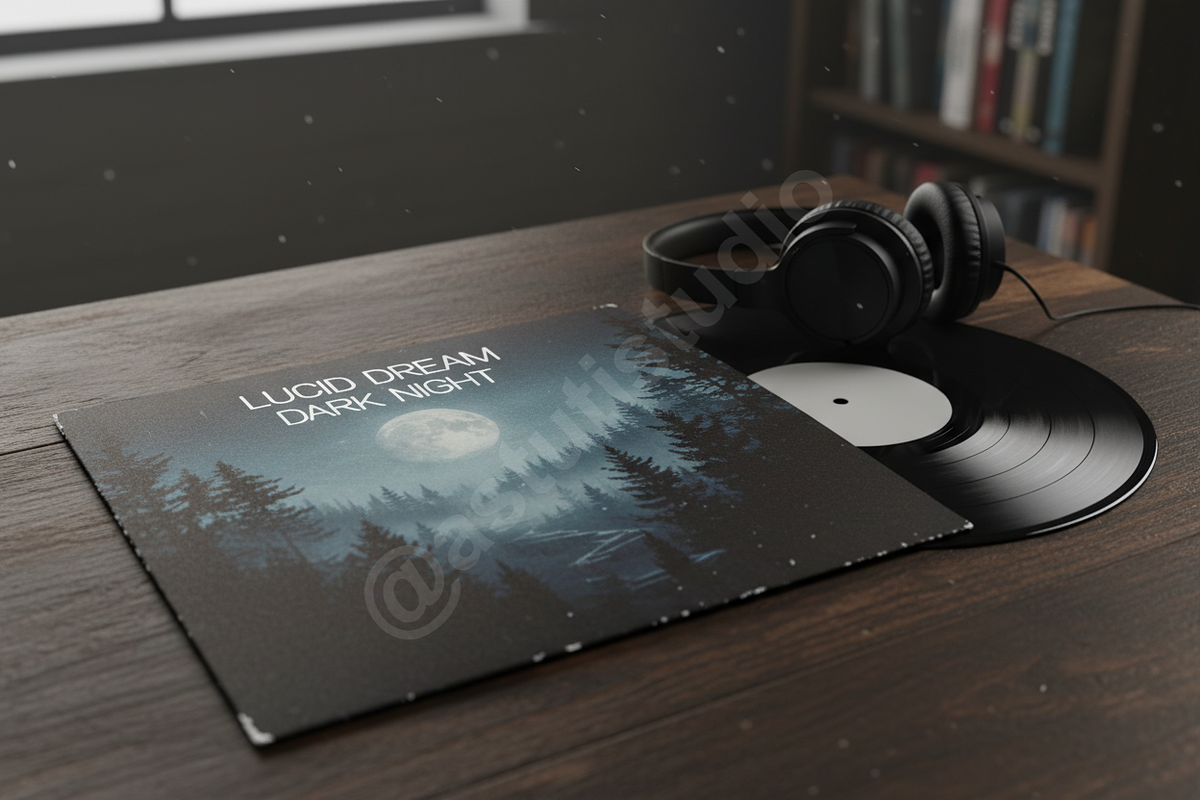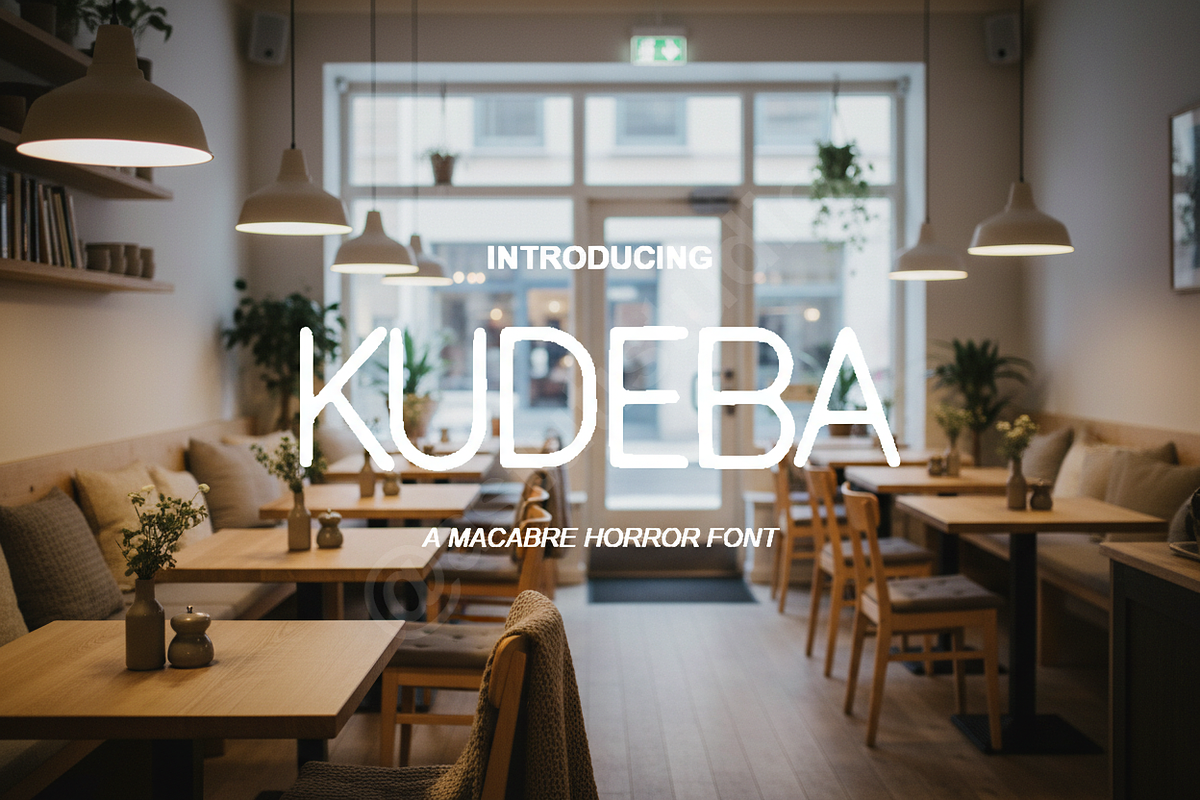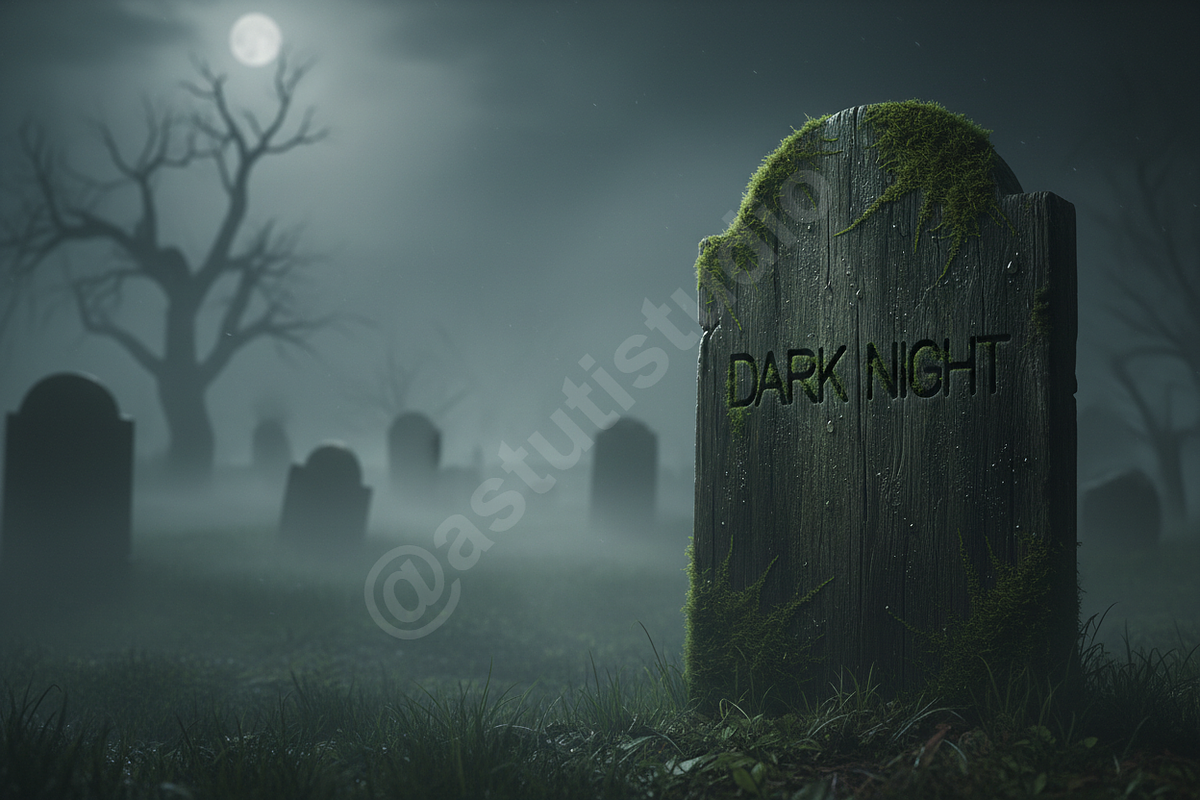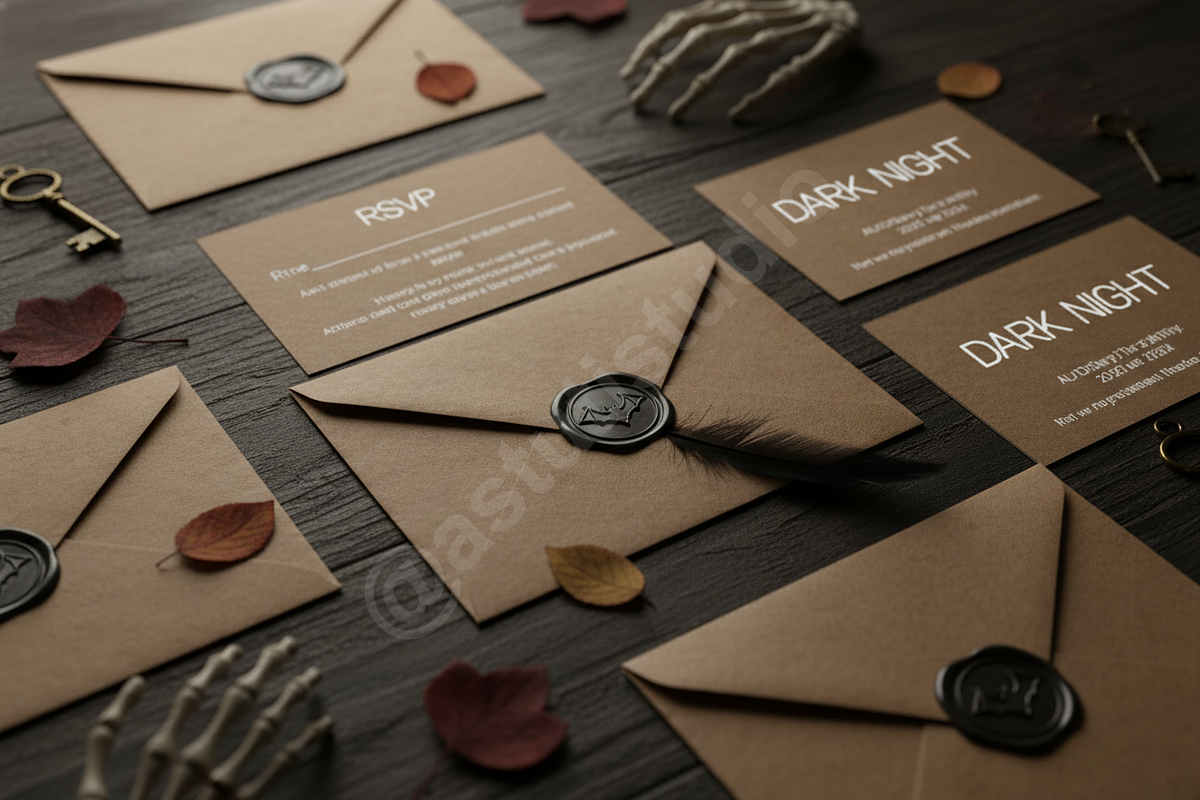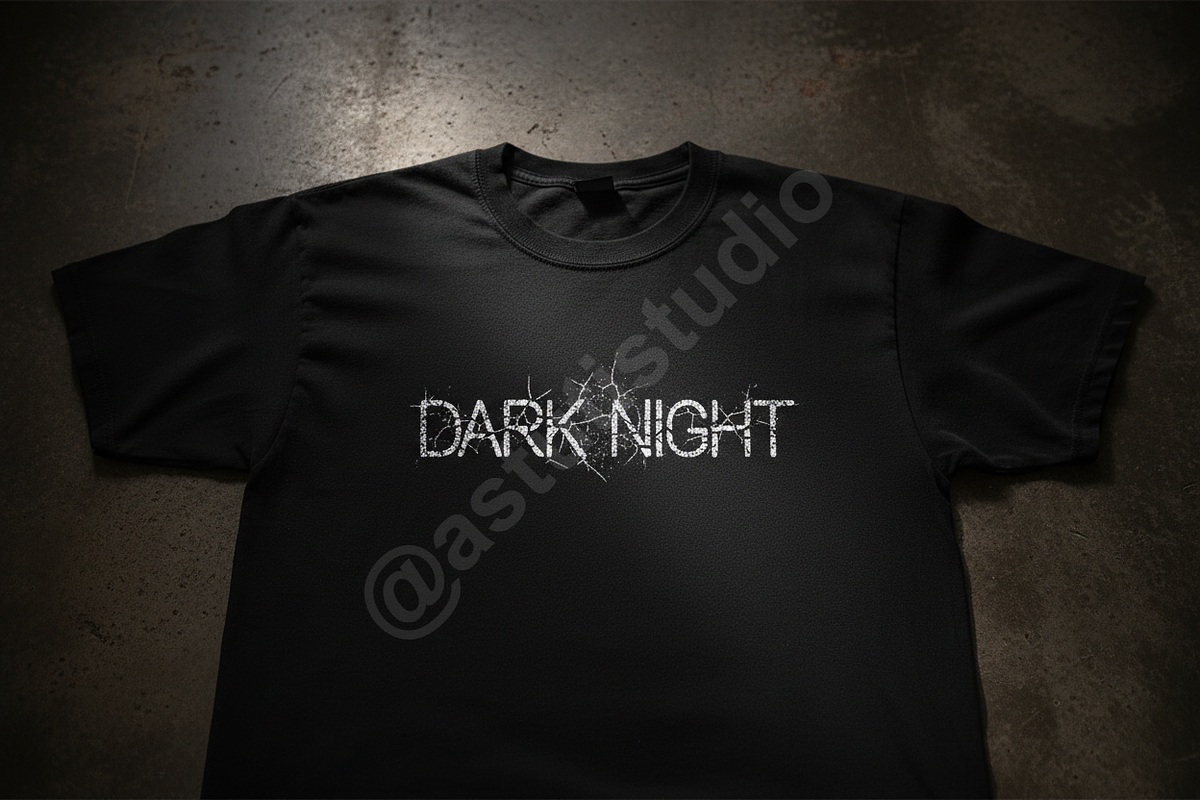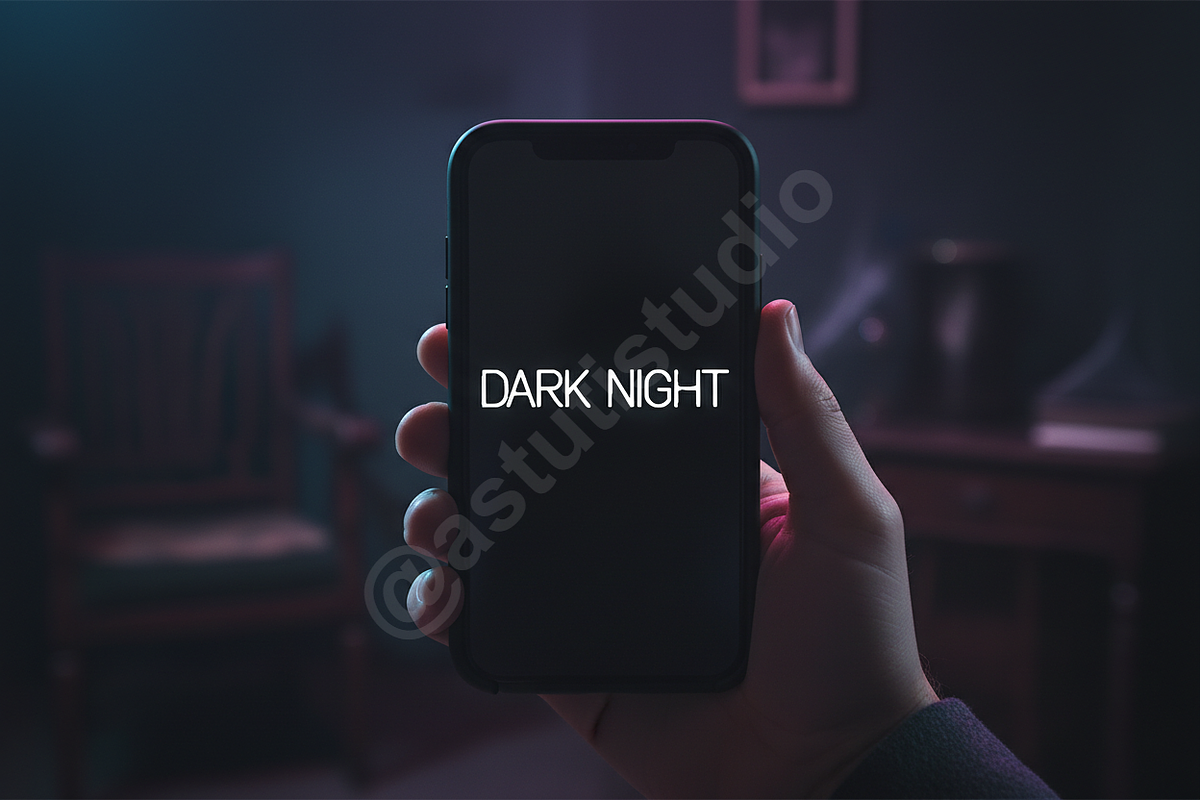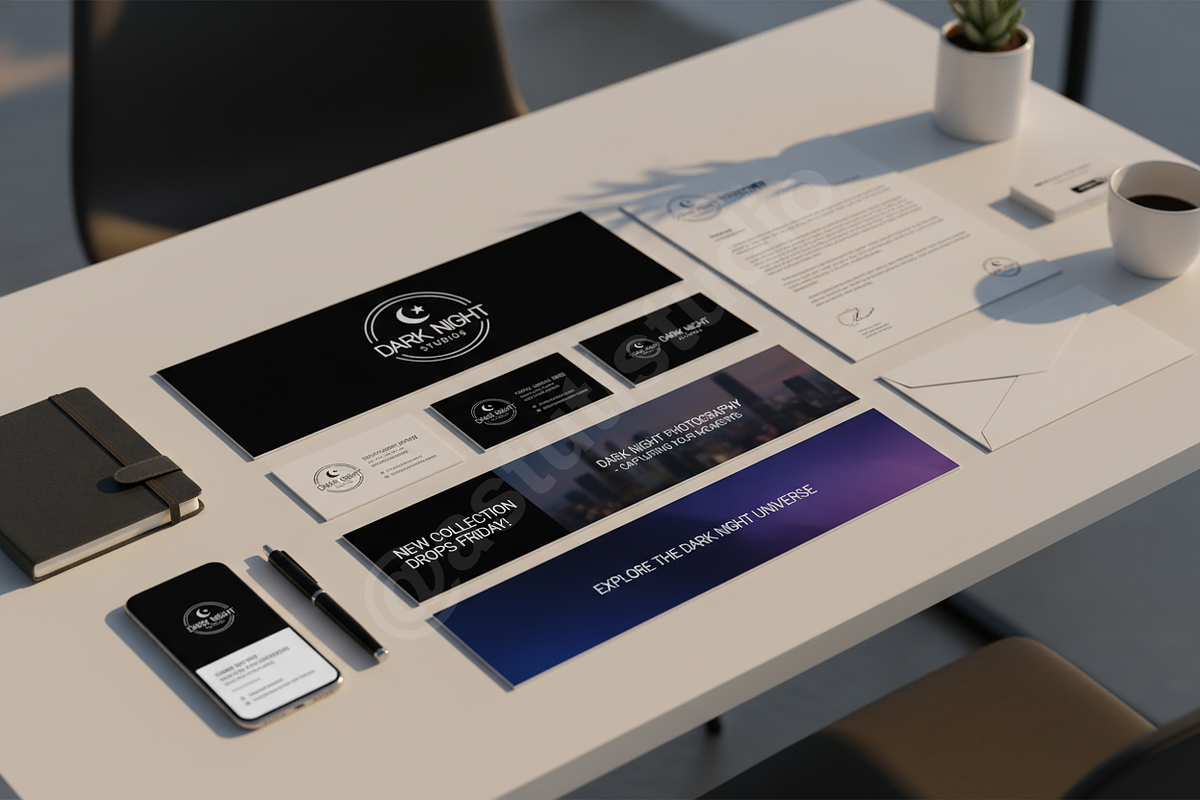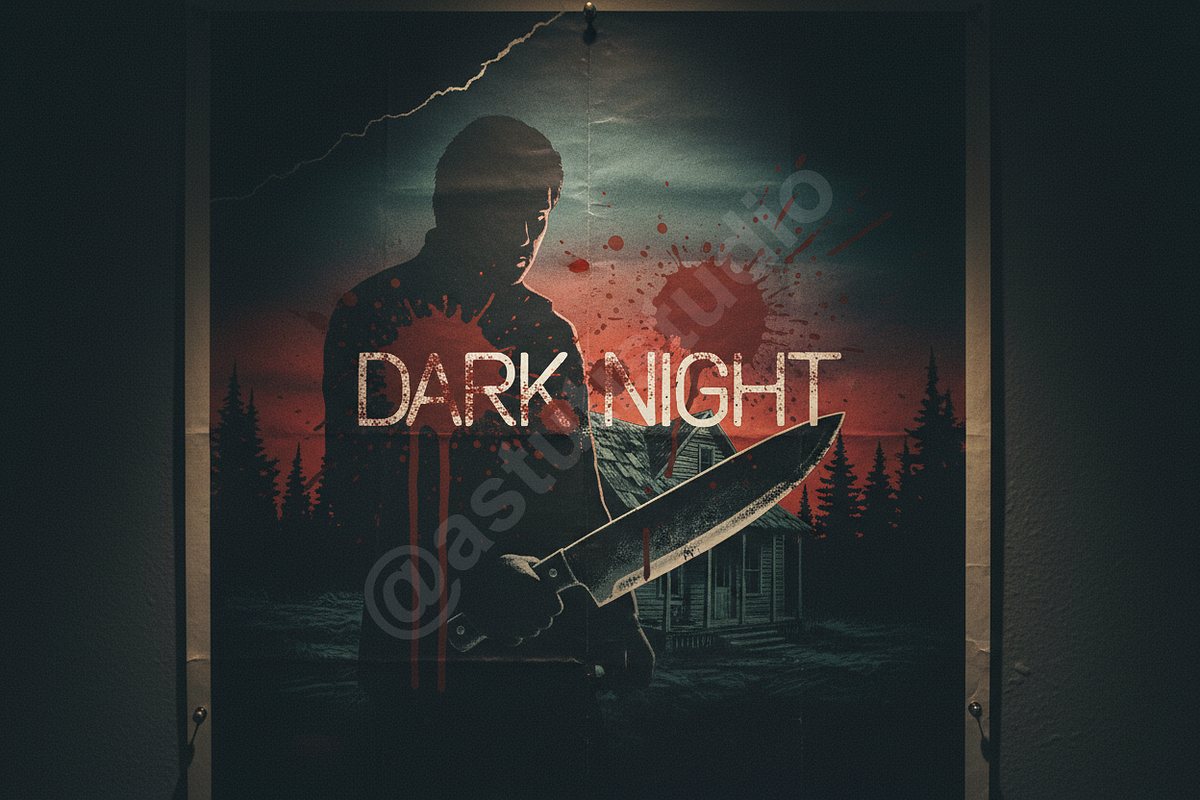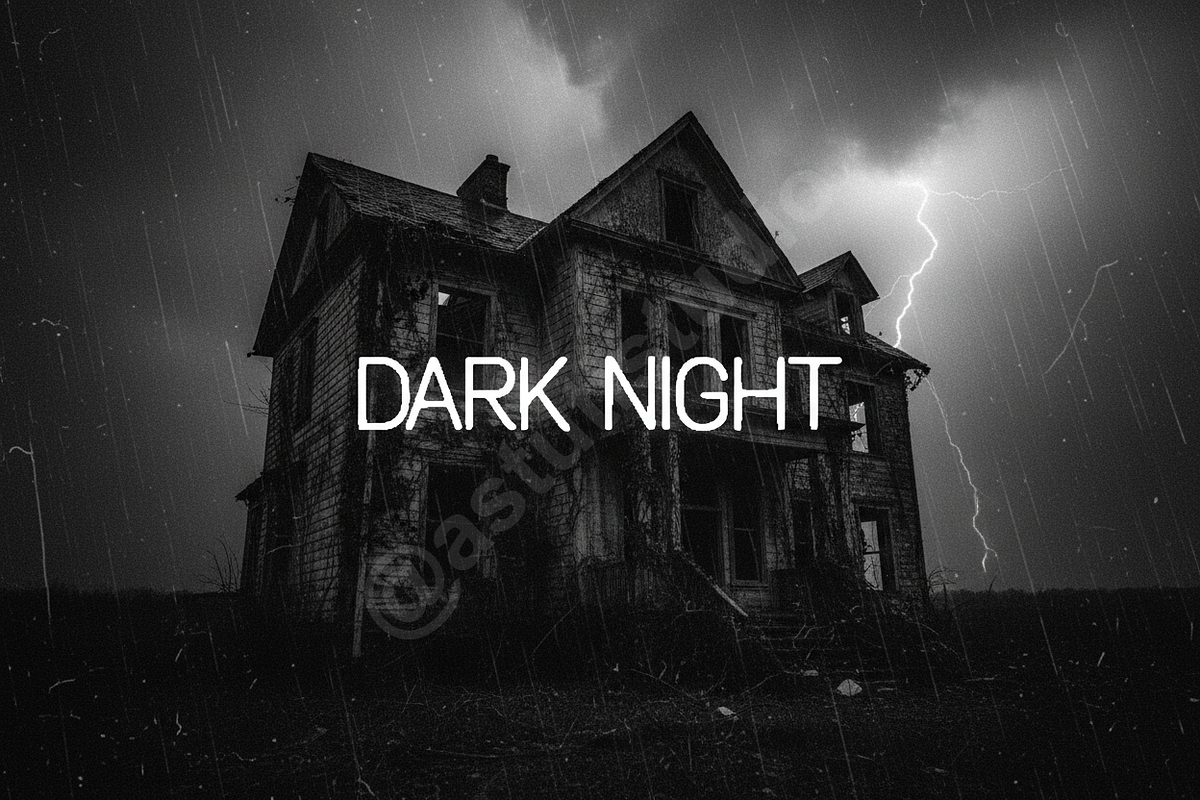
KUDEBA - ELEGANT LUXURY SERIF TYPEFACE
Elevate your creative projects with Kudeba, a high-end serif font meticulously crafted for premium studio aesthetics. Designed with sophisticated contrast and clean lines, Kudeba brings an air of timeless elegance to modern typography. Whether you are crafting a boutique brand identity or designing a high-fashion editorial layout, this font delivers a polished and professional finish.
Kudeba is specifically optimized for high-impact applications, making it perfect for luxury branding, editorial design, high-end packaging, and curated social media content.
- Elegant high-contrast serif design
- Extensive set of unique ligatures and alternates
- Full multilingual support for global reach
- Precise kerning and balanced letterforms
- Clean and legible at both display and body sizes